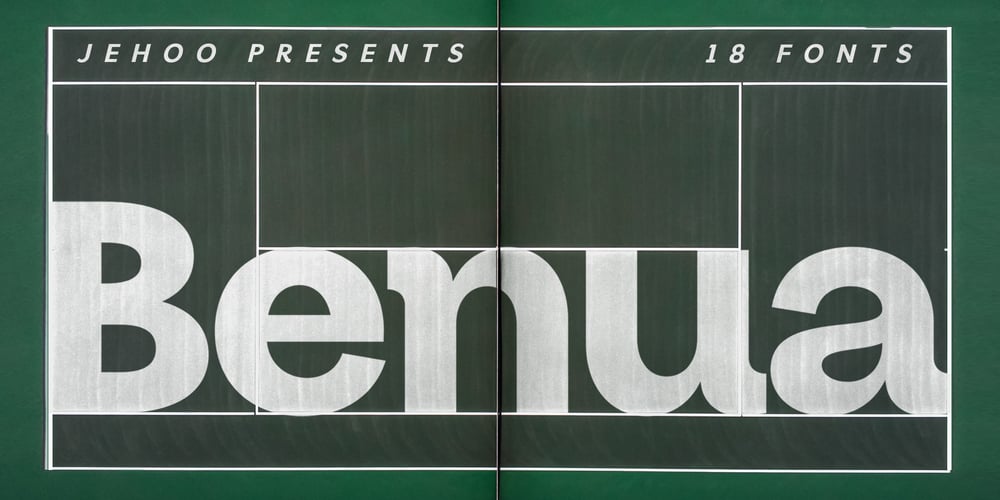
Benua Font Family was designed by Anwar Patihan and published by Jehoo Creative. Benua contains 18 styles and family package options. Benua font family, a sleek and modern sans serif font designed with unique curved details at the letters a, d, l, m, n, p, and r. These details give the font a distinctive look and feel, creating a cohesive and harmonious design. Closed apertures and generous spacing of the font provide excellent legibility, making it an ideal choice for both print and digital media.Benua also features small caps, which add a touch of elegance and sophistication to any design project. The font comes in 9 weights, from “Thin” to “Black,” each equipped with its own italic version, allowing for a range of emphasis and flexibility in design.